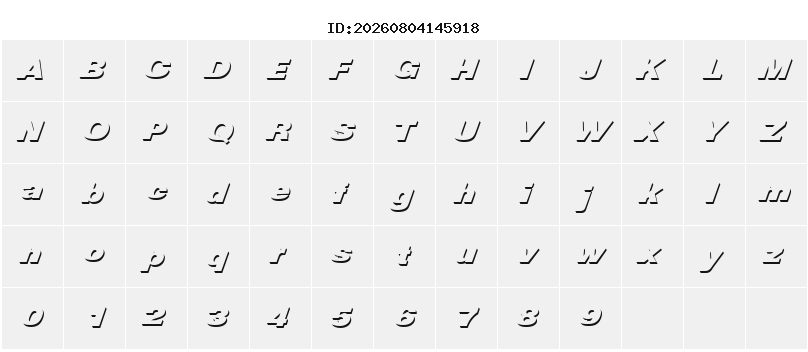
NimbusSanDiaOnlShaD Preview
• Font Name: NimbusSanDiaOnlShaD
• Full Font Name: NimbusSanDiaOnlShaD
• PostScript Name: NimbusSanDiaOnlShaD
About NimbusSanDiaOnlShaD.ttf
NimbusSanDiaOnlShaD.ttf is a modern, elegant sans-serif font designed for ultimate readability and visual harmony. Perfect for branding, headlines, web design, and print materials.